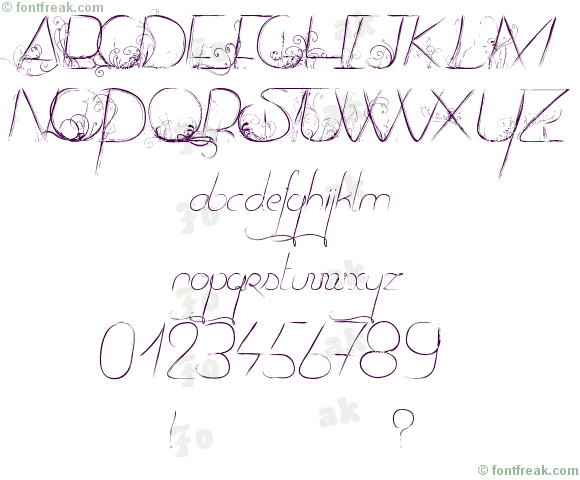
Dancing on the Grass
About Dancing on the Grass
"Dancing on the Grass" by Maelle.K is a whimsical script font that captures the essence of carefree elegance. This font features a flowing, handwritten style, perfect for projects that require a personal touch. The stroke weight varies throughout the characters, giving it a dynamic feel that mimics natural handwriting. Decorative elements, such as playful swirls and slight embellishments, add charm and character, making it visually engaging. The spacing is well-balanced, ensuring readability while maintaining an artistic flair.
What truly sets the "Dancing on the Grass" font apart is its ability to combine playfulness with elegance. It evokes a sense of joy and lightness, making it a delightful choice for projects that aim to capture attention and convey warmth. Discover the charm of this beautiful typeface with the "Dancing on the Grass font free download" and let your creativity flourish.